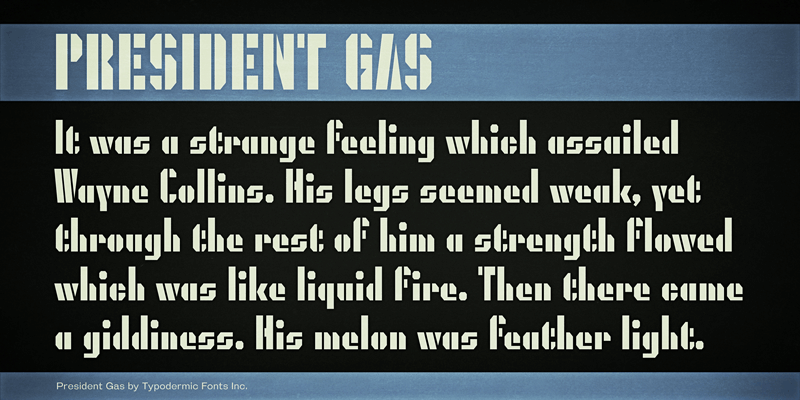
President Gas is a masculine, octagonal, stencil font. It was created in 1997. The latest version has all better spacing, better kerning, more language coverage and web-font optimization. This font includes a license that allows free commercial use: sometimes referred to as a desktop license. This allows you to install the font on a computer and use it to create posters, web graphics, game graphics, t-shirts, videos, signs, logos and more. Read the license agreement for details. If you'd like to embed this font in an app, ebook, on the web or anything that's not covered by the desktop license agreement, visit the link below. You'll find distributors who offer different types of licenses or you can contact me for help. http://typodermicfonts.com/president-gas-font/ |